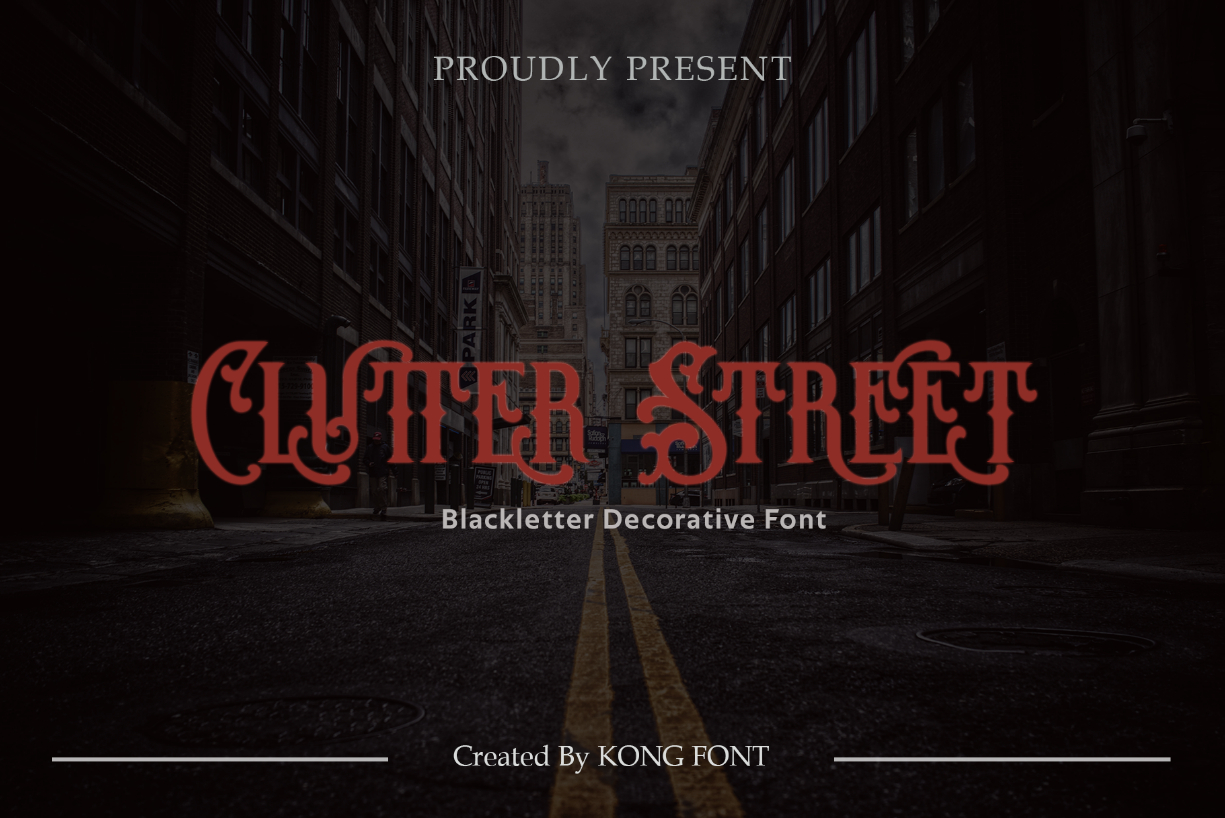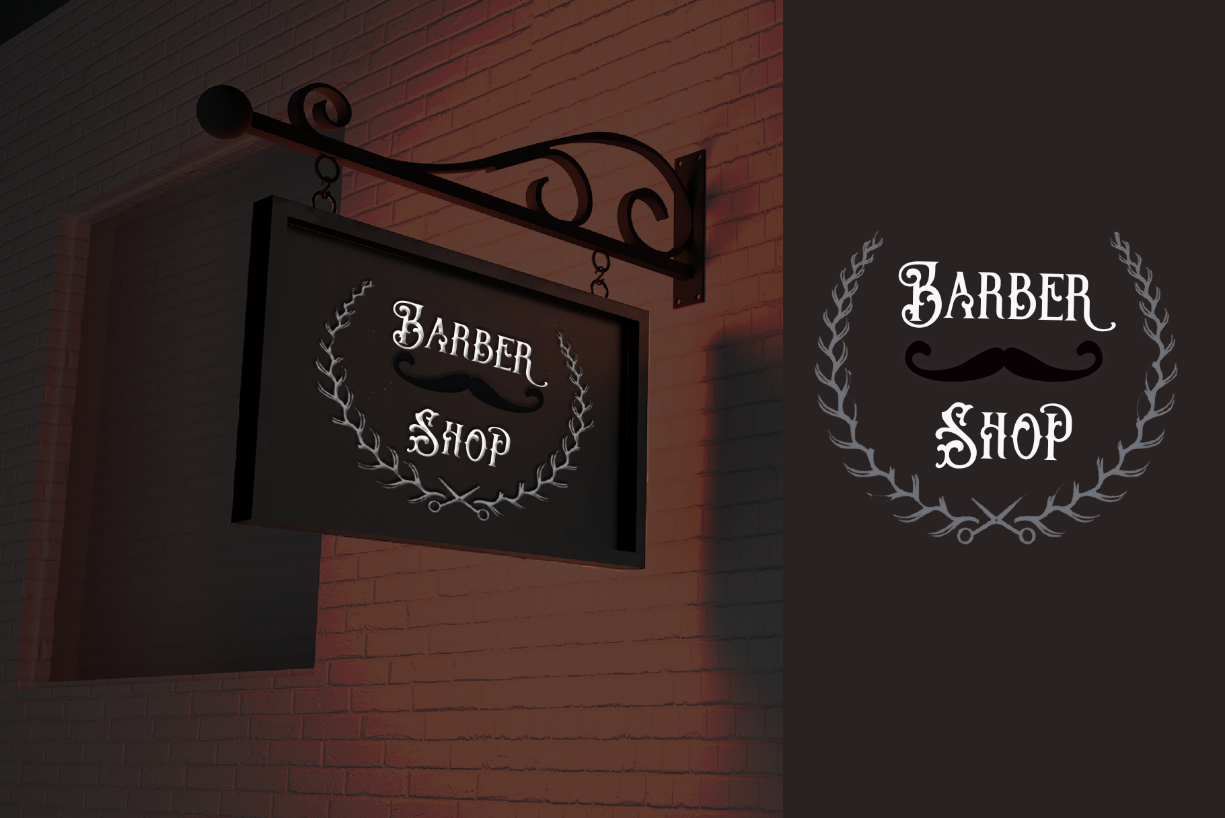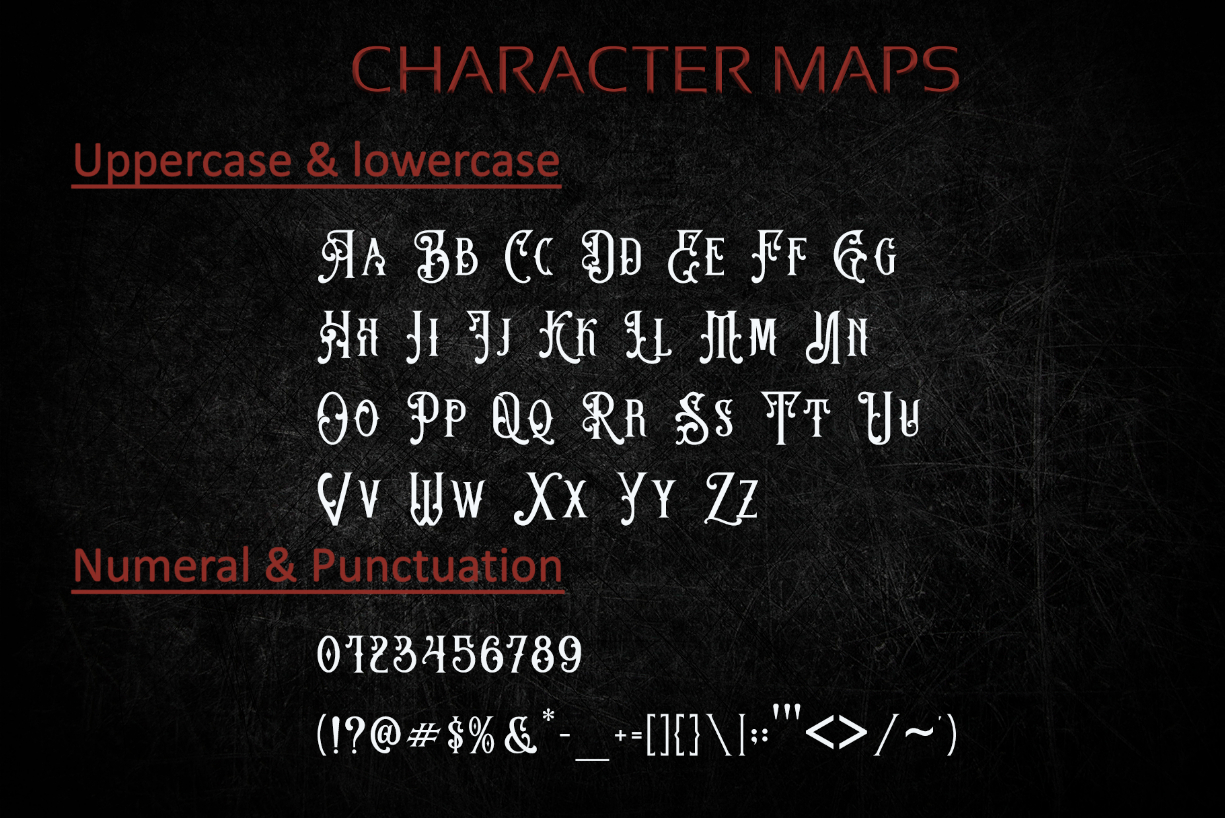
Clutter Street Font
About Clutter Street Font
Clutter Street is a modern and mysterious blackletter font. It’s great for crafters and designers. Compatible with tools such as Photoshop and Silhouette design studio.